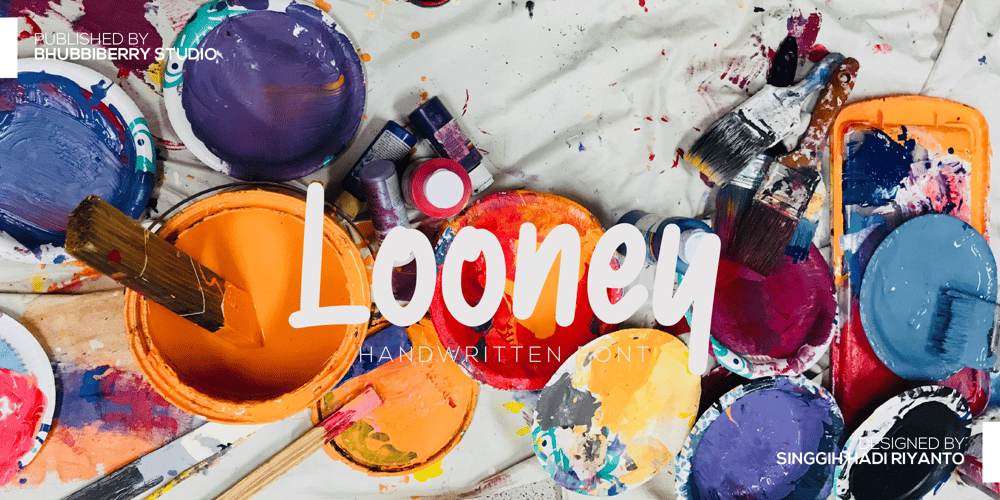
Looney
Looney font
Looney Font Family was designed by Singgih Hadi Riyanto and published by Bhubbiberry Studio. Looney contains 1 styles and family package options. Looney, a handmade font! This bold, free-flowing and casual font is designed to be easily customisable. Looney is a font which you can use and enjoy, for anything from promotional material and handwritten quotes, to product packaging, merchandise and branding projects.